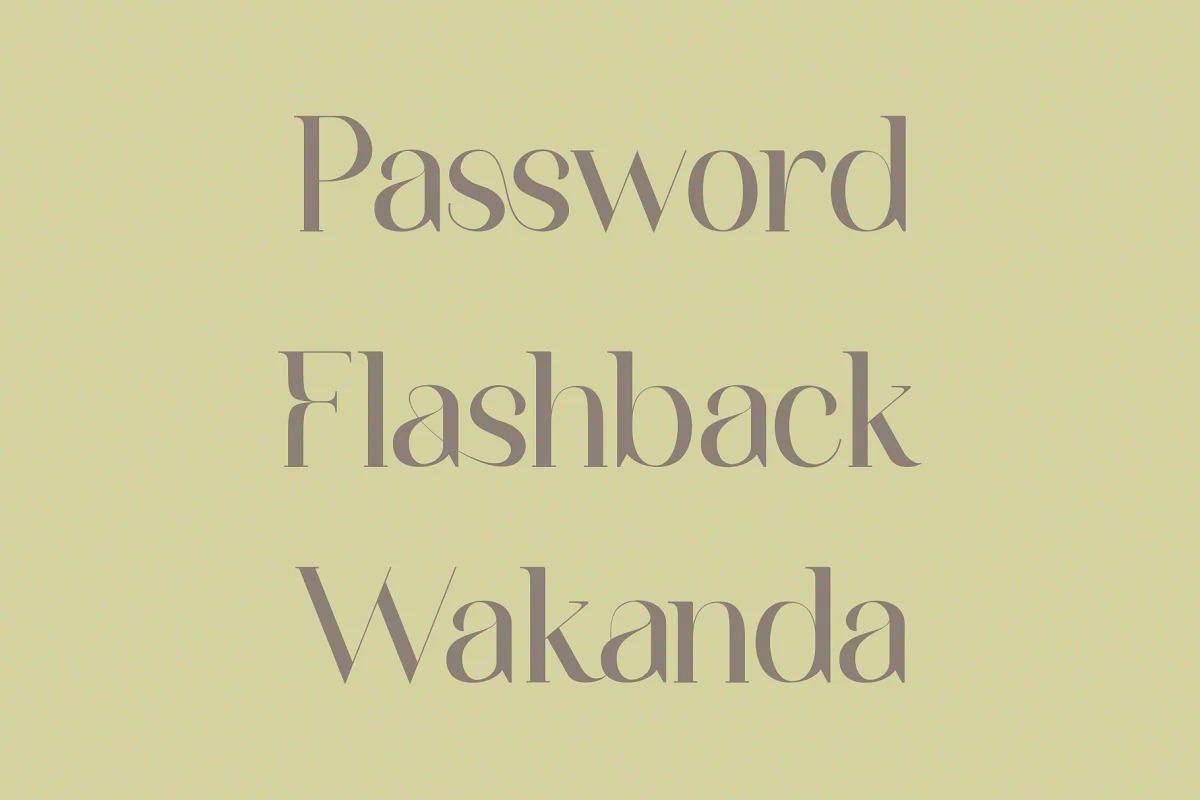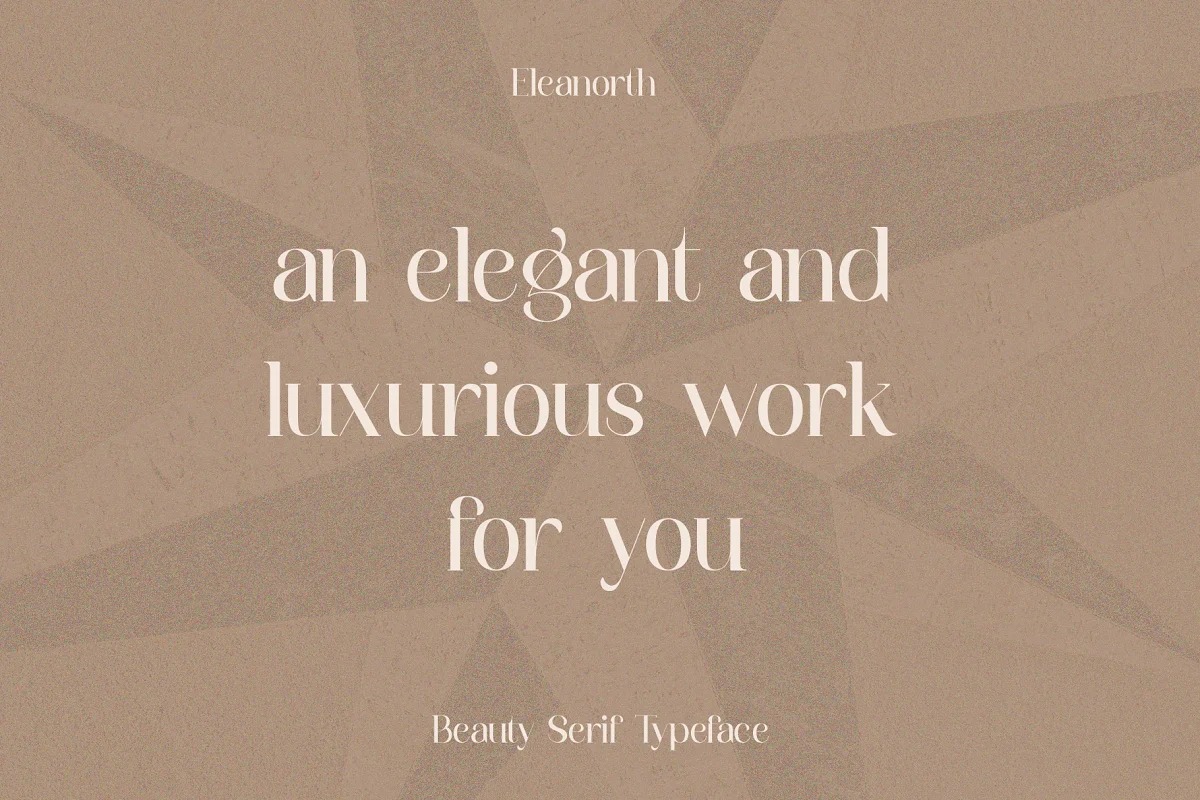
Eleanorth Font
Eleanorth Serif Font
This is an elegant & modern serif typeface that looks incredible in both large and small settings as a display with italic version. Specially designed for luxury, elegant, feminine, dashing projects. Eleanorth is perfect for supporting modern and chic designs such as logos, titles, editorials, and more.